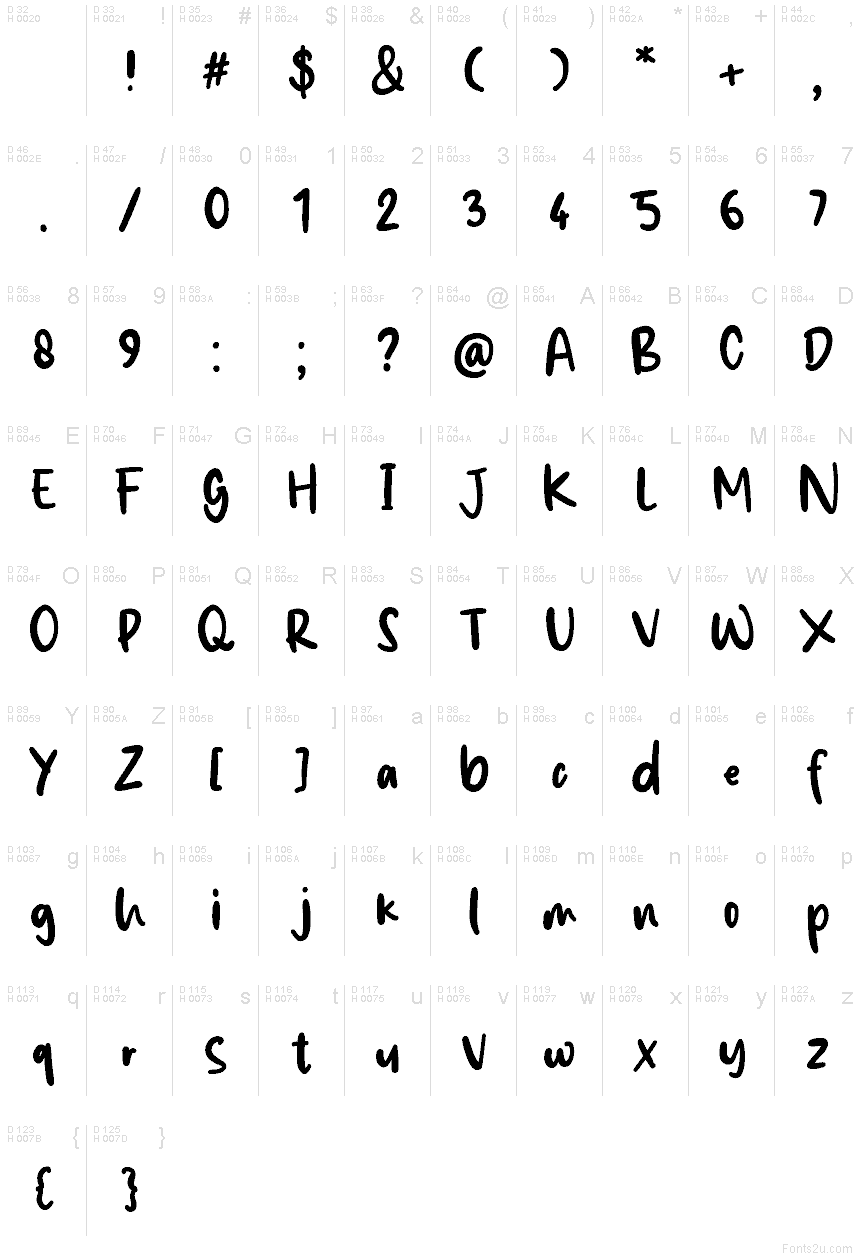
Rainbow Symphony
Rainbow Symphony font by Viola Type is a free bold handwritten display font. It solves that tricky gap between playful and readable: thick, inky strokes with rounded terminals feel friendly, while the steady x-height and open counters keep lines clean. Letters bounce lightly without getting chaotic, so headlines pop and stay legible on small labels or busy thumbnails.
Using Rainbow Symphony, you can nail social posts, stickers, kids’ packaging, bakery logos, event flyers, quote graphics, and greeting cards. The consistent rhythm makes short phrases look intentional, not messy, and the soft brush texture gives warmth without clutter. Pair this free font with a light geometric sans for body copy; keep tracking slightly snug to emphasize its punchy rhythm.